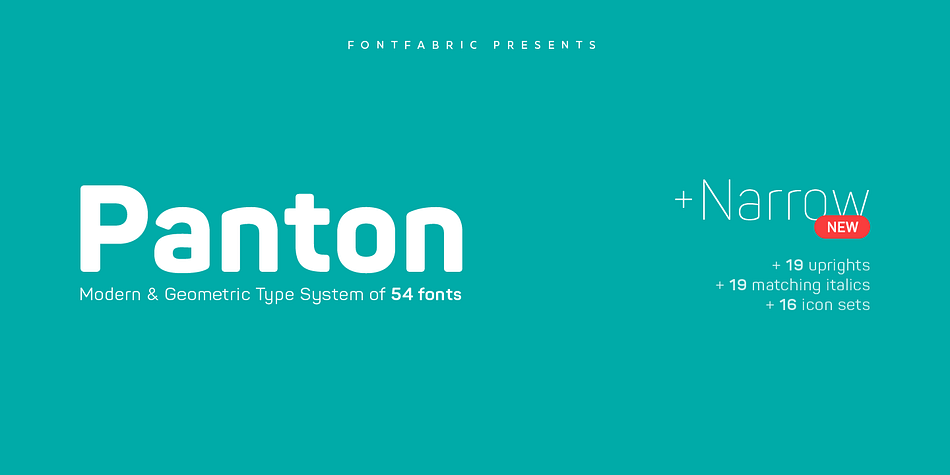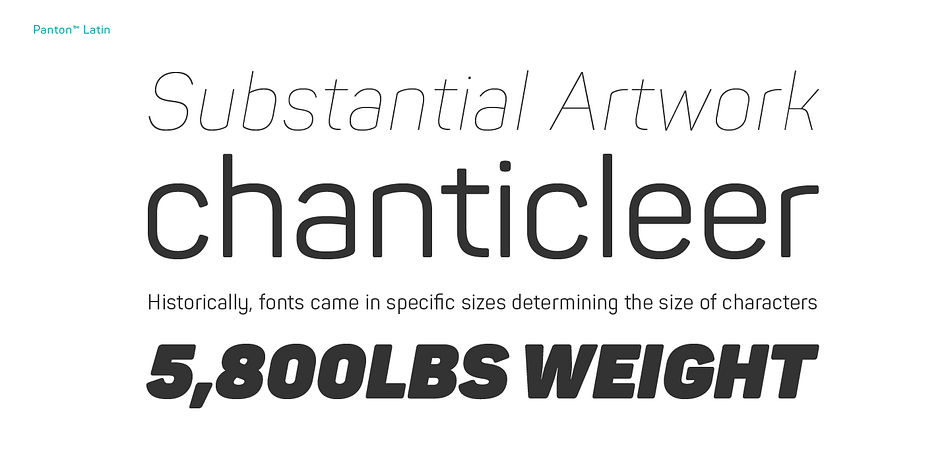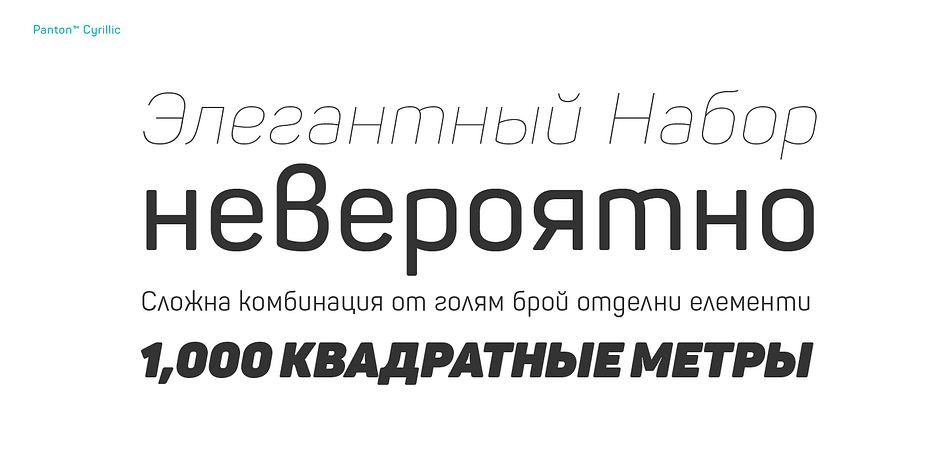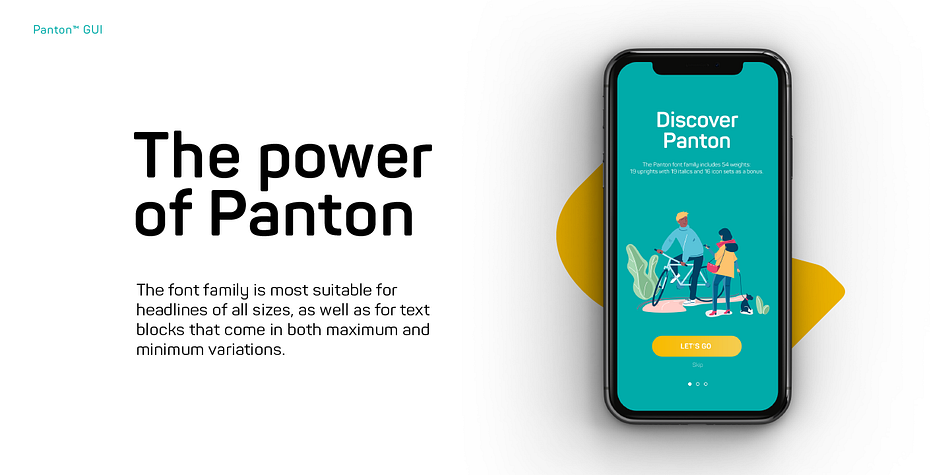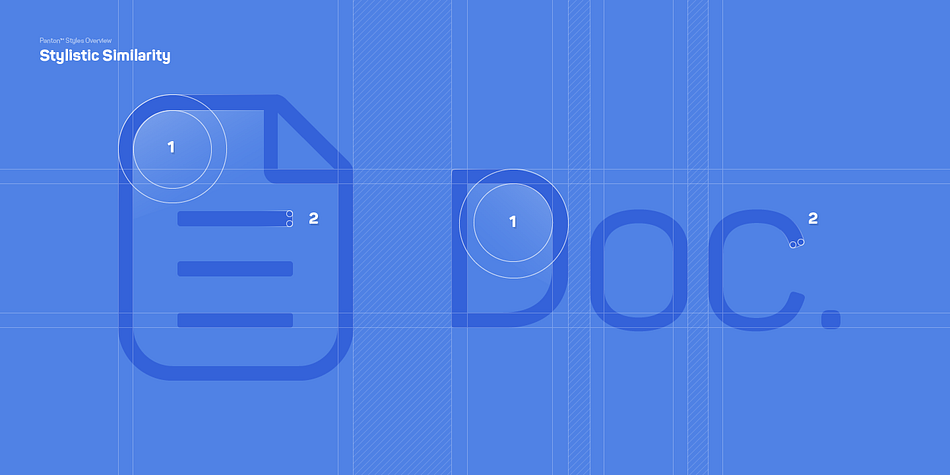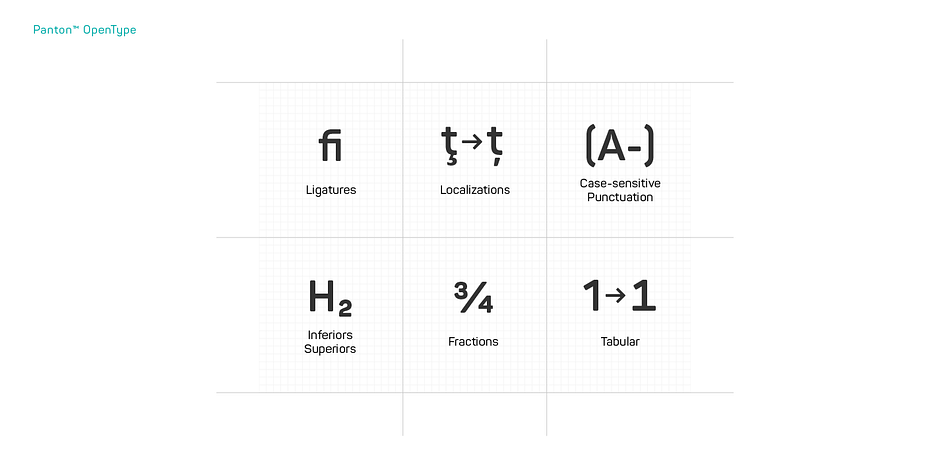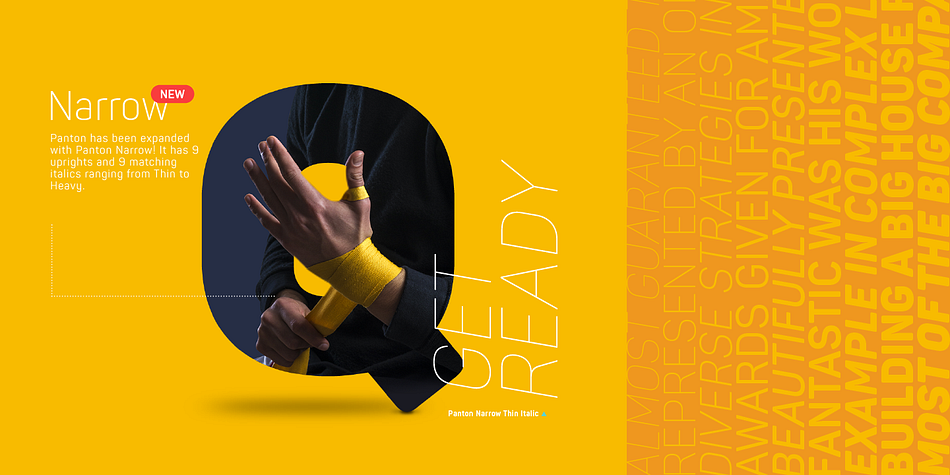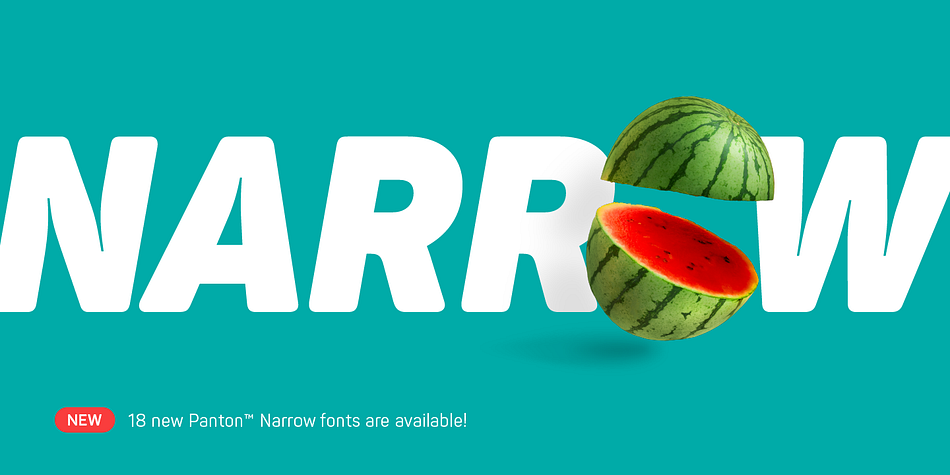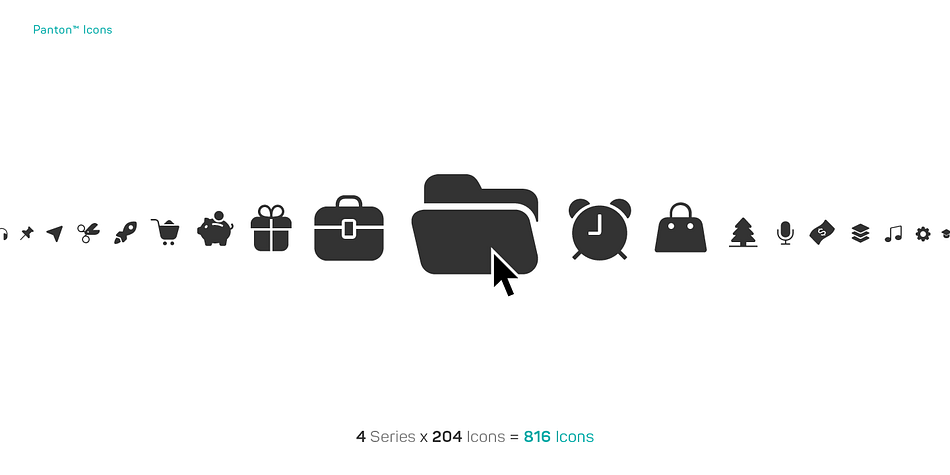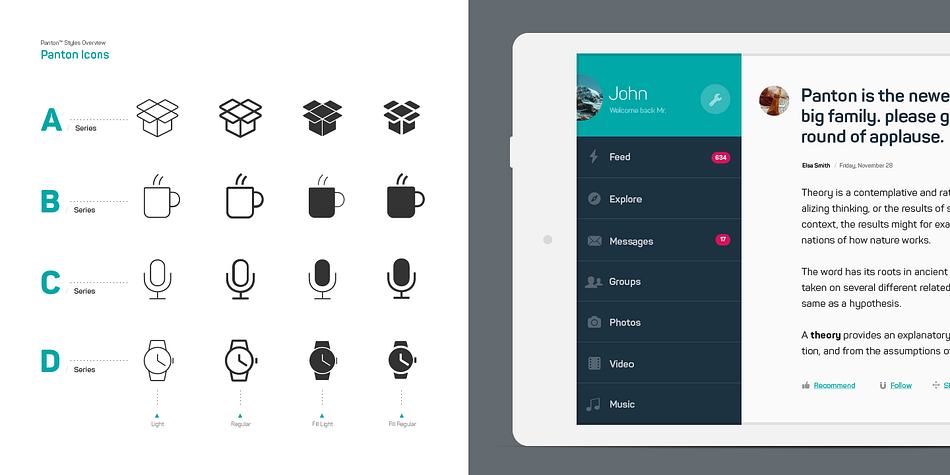
Panton is a dingbat and sans serif font family. This typeface has fifty-four styles and was published by Fontfabric.
Panton has been expanded with Panton Narrow! It has 9 uprights and 9 matching italics ranging from Thin to Heavy.
NEW! Update 3.0
What’s New:
• New Narrow version of 18 weights
• Bulgarian Localization Support
• Tabular Figures
• Case-Sensitive Punctuation
• Extended Glyph Case
The Panton font family includes 54 fonts - 19 uprights with 19 matching italics and 16 icon sets as a bonus! It is characterized by excellent legibility in both web & print design areas, well-finished geometric designs, optimized kerning, excellent web-font performance and legibility etc.
Inspired by the classic grotesque typefaces - Panton has his own unique style, expressed in perfectly softened geometric forms.
The font family is most suitable for headlines of all sizes, as well as for text blocks that come in both maximum and minimum variations. Panton font styles are applicable for any type of graphic design in web, print, motion graphics etc and perfect for t-shirts and other items like posters and logos.